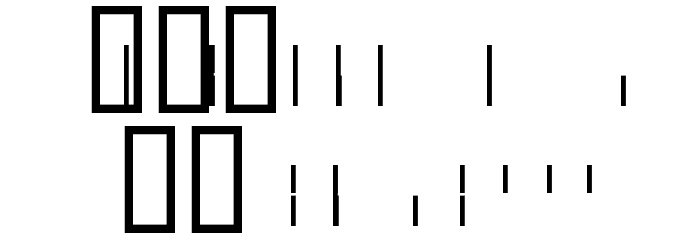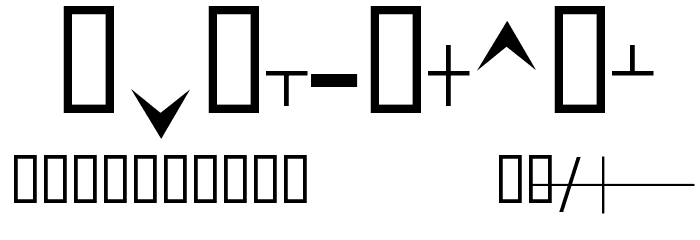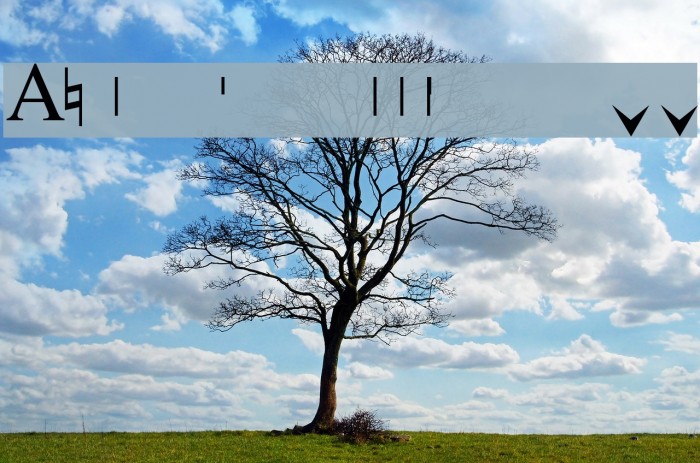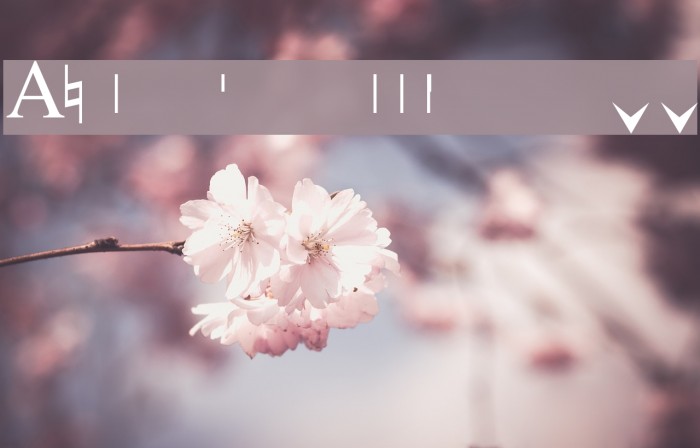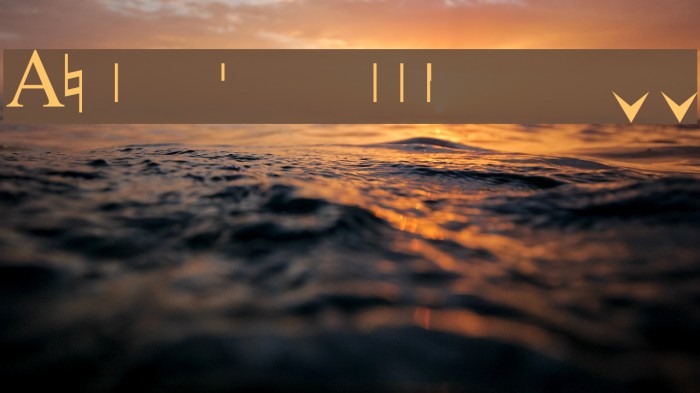
Harp Pedals 1.1 Font
This font is a unique and specialized typeface designed for musical notation, specifically for harp pedal diagrams. It features a combination of musical symbols and characters that represent different pedal positions and notes. The design is highly functional, focusing on clarity and precision to ensure accurate musical interpretation. The characters are distinct and easily recognizable, with a clean and structured appearance. This font is not intended for general text but serves a specific purpose in musical contexts, providing essential information for harpists.
A specialized font for harp pedal notation with clear, structured symbols.
- Proposed Projects: Ideal for creating harp sheet music, educational materials for harpists, and digital applications that require precise musical notation for harp pedals.
- Overall Style: Functional
- Use Case: Musical notation